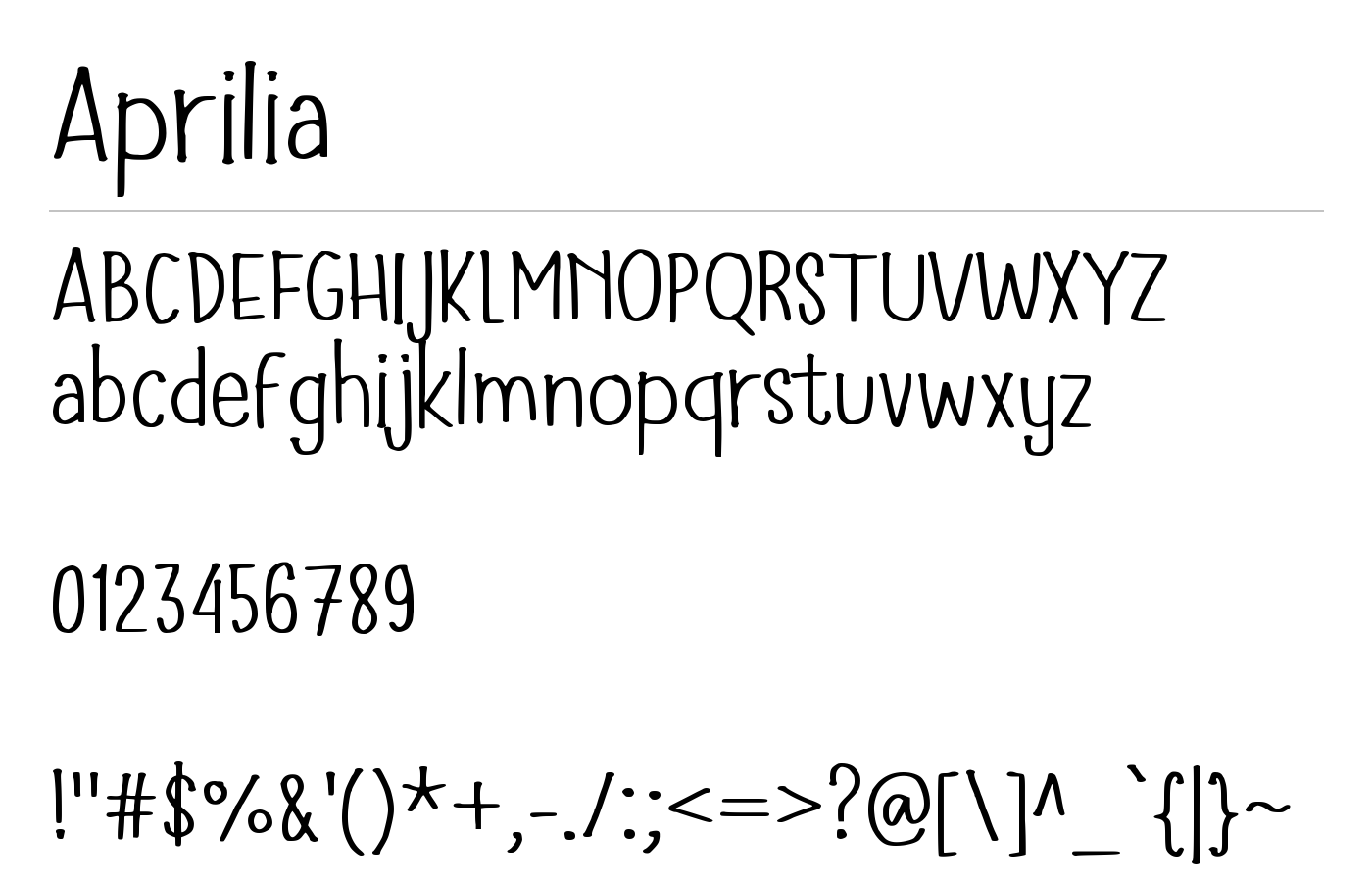
Aprilia is a playful and informal sans serif font with a hand-drawn, slightly irregular style that adds charm and personality. Its tall, narrow letterforms with rounded edges and modest contrast create a friendly and approachable feel, making it ideal for casual, creative, or youth-oriented designs. This font works well in headlines, logos, and packaging where a warm, inviting atmosphere is desired.
Aprilia Font
About Aprilia Font
| Designer | Sidkia |